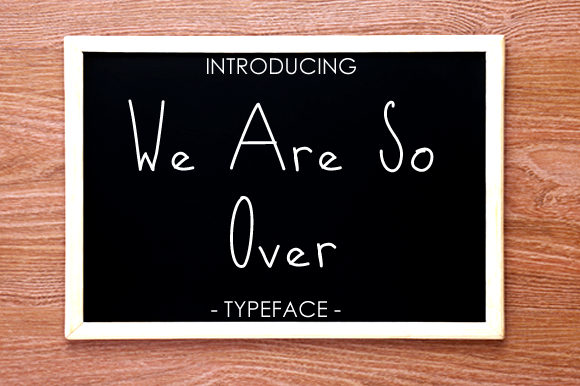
Behold, the audacious and unapologetic We Are So Over font, a trailblazer in the realm of handwritten sans serif typefaces. This masterpiece, conjured by the imaginative minds at yh.seaofknowledge, is a symphony of strokes bursting with vitality and sass, guaranteed to infuse your designs with an intoxicating dose of personality.
At first glance, We Are So Over captivates with its striking, bold appearance, effortlessly commanding attention wherever it graces. Its confident letterforms dance and twirl with an untamed spirit, refusing to be confined by conventional norms. Each character overflows with passion and drama, as if they were plucked straight from the pages of a thrilling novel, ready to weave tales of love, intrigue, and adventure.
This symphony of glyphs liberates your creativity, allowing you to effortlessly manifest your boldest visions. Whether you're designing logos that demand attention, crafting website headers that leave a lasting impression, or composing social media posts that ignite engagement, We Are So Over is your steadfast companion, amplifying your message with its inherent charisma.
With We Are So Over as your ally, you'll captivate audiences, leaving them spellbound by your creations. Let this font be your megaphone, amplifying your voice with its inherent drama and flair. Seize this opportunity to make a statement, to stand out from the mundane, and to leave an enduring mark on the world through your designs.